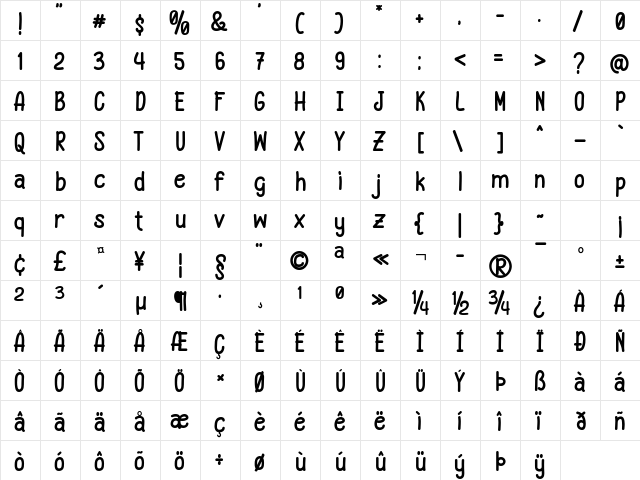
Pineapple Grass Regular
| Designer | Jember |
Design Context for Pineapple Grass Typeface
Pineapple Grass is a composed and adaptable typeface that performs quietly and consistently across a wide range of design contexts.